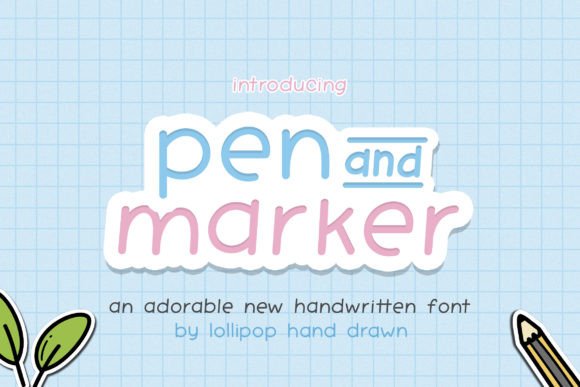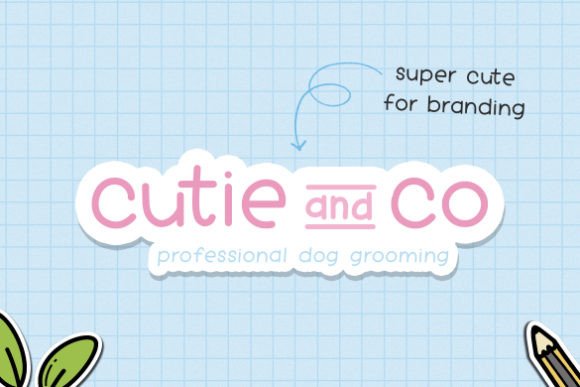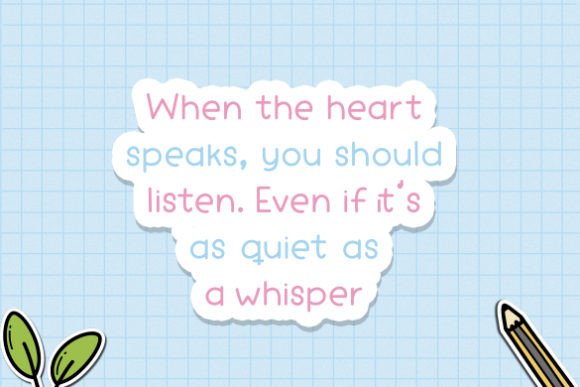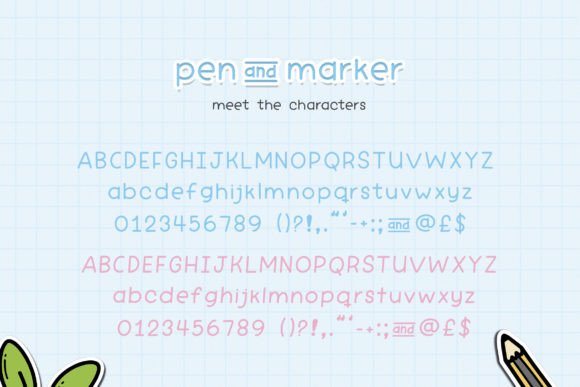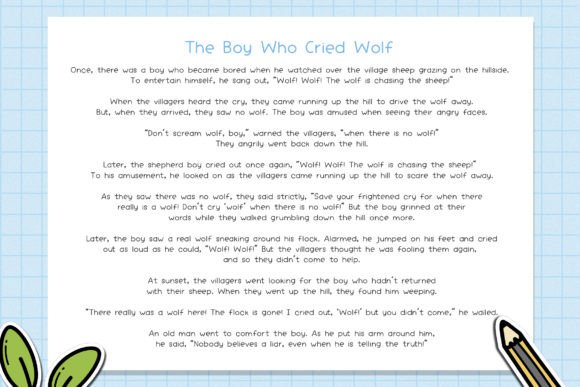
Pen and Marker Font
About Pen and Marker Font
Pen and Marker is a cute and adorable handwritten font. Whether you’re using it for crafts, digital design, presentations, or making greeting cards, this font has the potential to become your favorite go-to font, no matter the occasion!